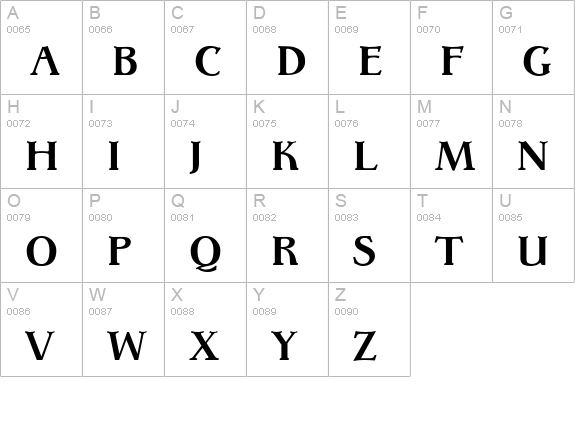
WakefieldGD Font Details
WakefieldGD is a captivating and versatile font that effortlessly combines elegance with a touch of playfulness. Its unique design is sure to catch the eye and make a lasting impression. This font features sleek and curvaceous letterforms, giving it a modern and sophisticated appearance. With its clean lines and balanced proportions, WakefieldGD is perfect for a wide range of design projects, including branding, logos, packaging, invitations, and more. What sets WakefieldGD apart is not just its impeccable aesthetics, but also its accessibility. This font is freely available to download at FontsMarket.com, making it an excellent choice for budget-conscious designers and creatives. Whether you're a professional designer or a hobbyist, WakefieldGD offers a delightful and user-friendly experience. Its extensive character set includes uppercase and lowercase letters, numerals, punctuation marks, and multilingual support. This means that no matter the language or project, WakefieldGD has you covered. With WakefieldGD, you can effortlessly bring your creative visions to life. Whether you're designing a sleek corporate logo or crafting an elegant wedding invitation, this font is sure to add a touch of sophistication and charm. So why wait? Download WakefieldGD for free at FontsMarket.com and unlock the endless possibilities it offers.